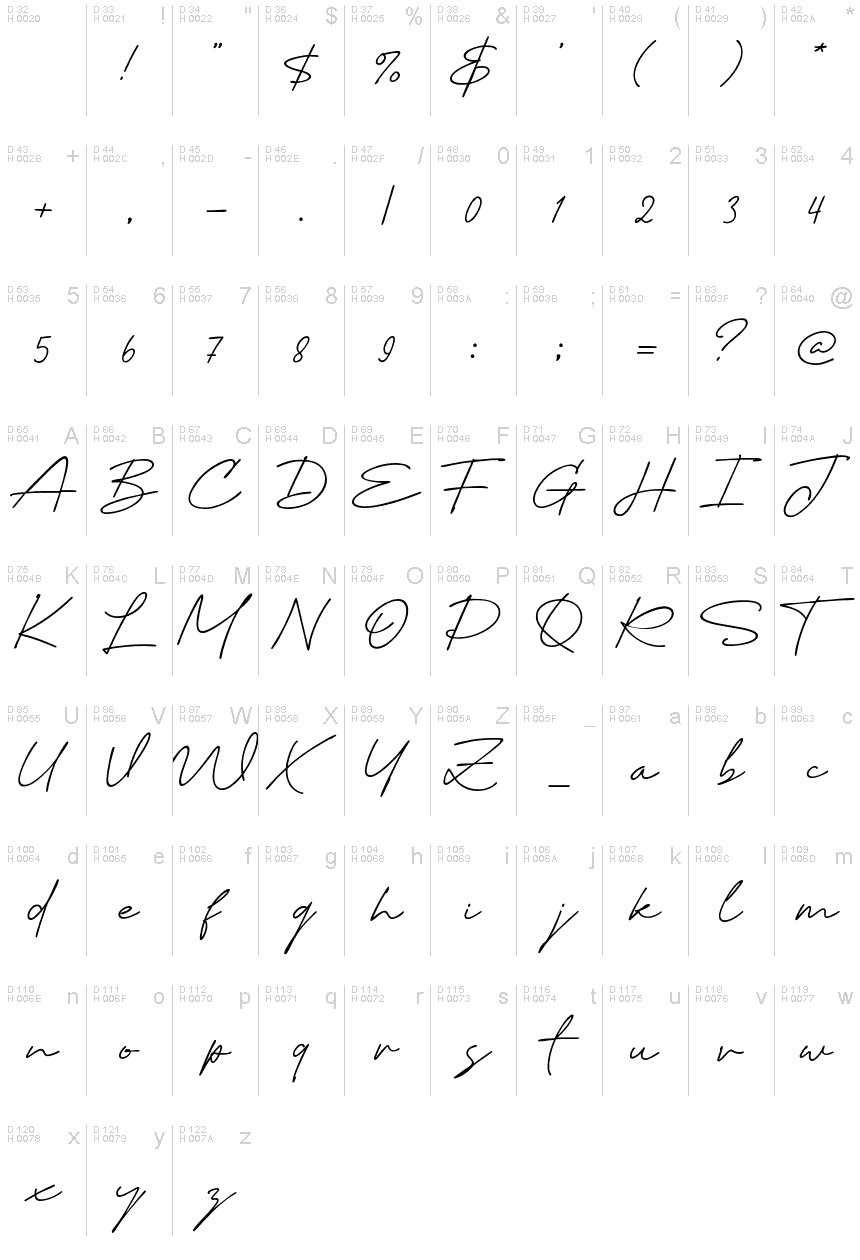
Saturday August
Saturday August is a playful and whimsical handwritten font designed by Khurasan. With its extra-light weight and semi-expanded width, this font exudes a carefree and airy vibe, perfect for a range of creative projects. Whether you're designing invitations, greeting cards, or social media graphics, Saturday August adds a touch of fun and personality to your work. Use it for children's book covers or illustrations for an added dose of charm. This typeface is also suitable for branding projects that want to convey a friendly and approachable image, such as cafes or bakeries. Let Saturday August bring a lighthearted touch to your next project!